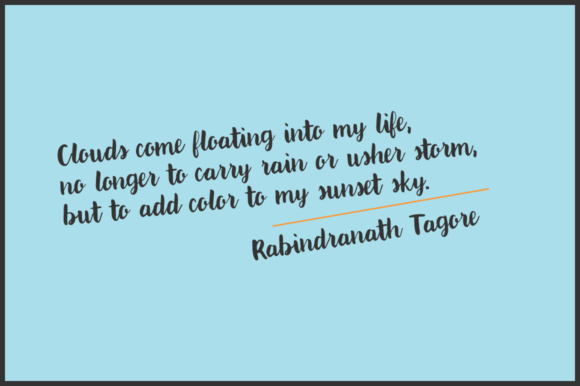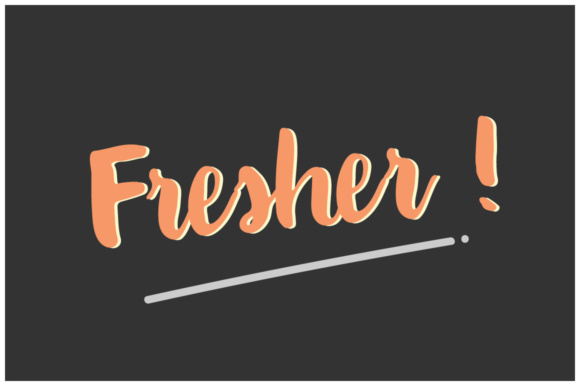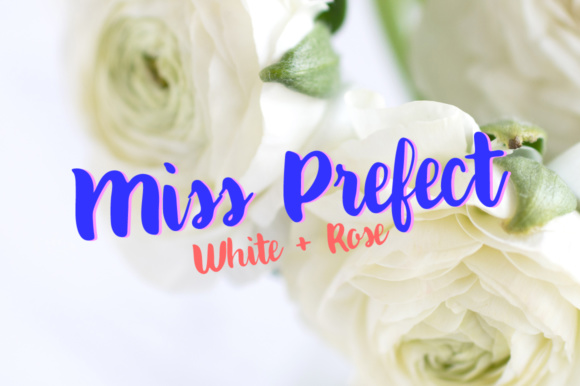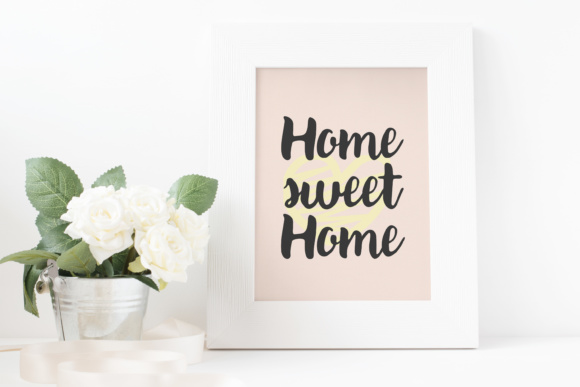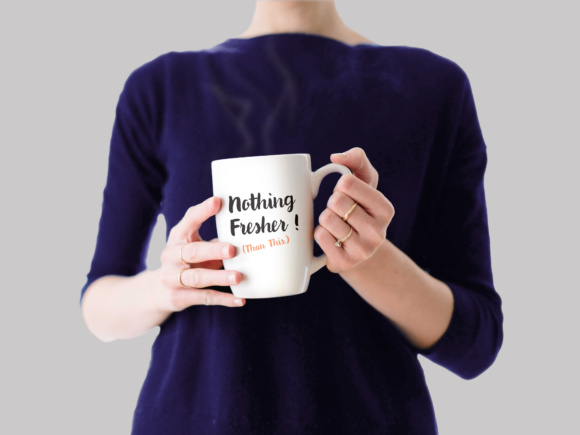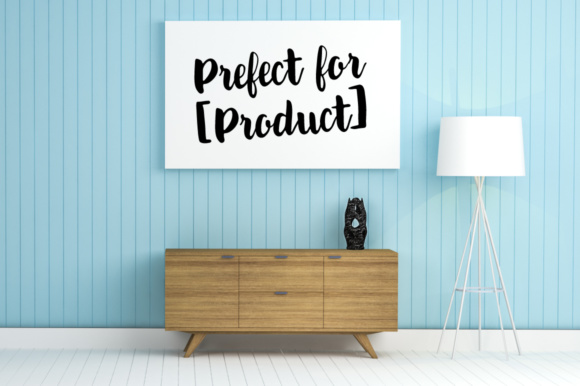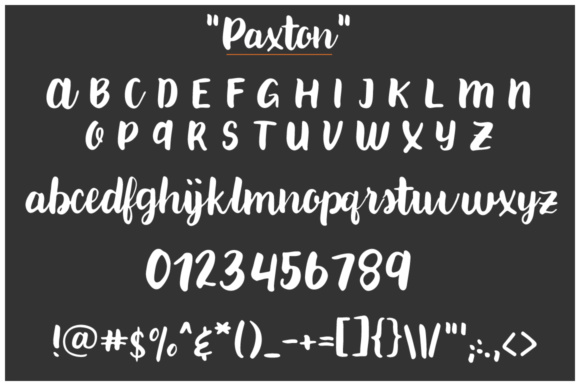
Paxton Font
About Paxton Font
The Paxton is a chic and fun handwritten font that is absolutely perfect for quotes, products, logos, packaging, and so much more!